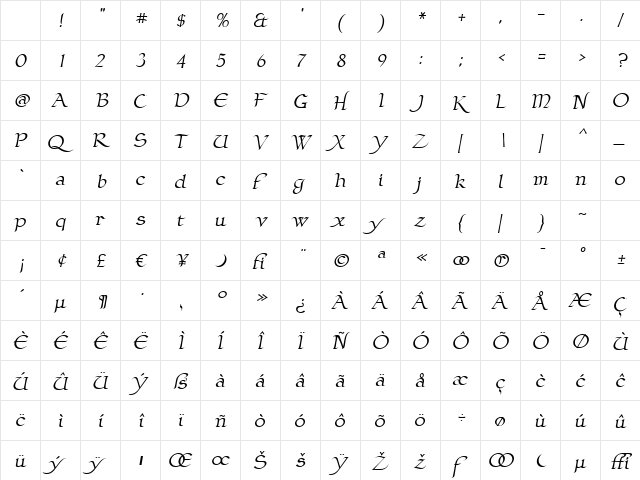
ClaustrumManuscript Regular Free Font
ClaustrumManuscript Regular
Design Context for ClaustrumManuscript
ClaustrumManuscript flows with the natural rhythm of handwritten lettering, making it ideal for designs that call for warmth and personal expression.
Font Pairing: Combine ClaustrumManuscript with a simple geometric sans for maximum contrast - the tension between flowing curves and clean structure is a classic typographic pairing.
Pro Tip: Use ClaustrumManuscript for short runs of text - names, titles, or taglines. Extended body copy in script faces tires the eye quickly.